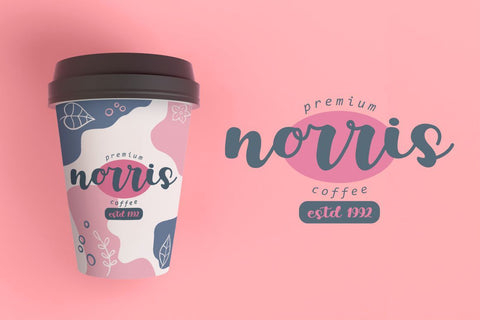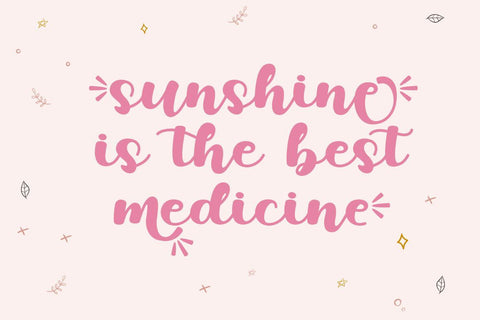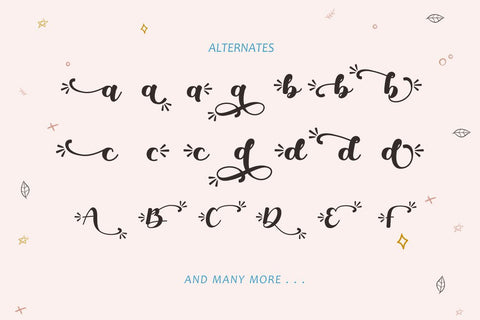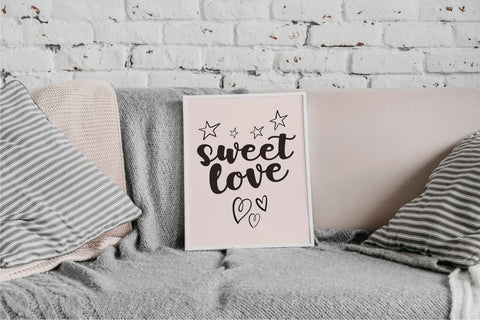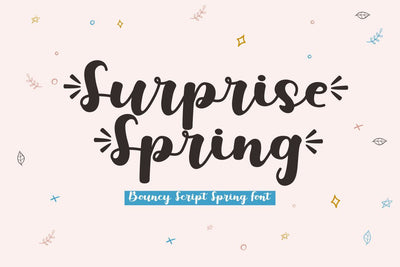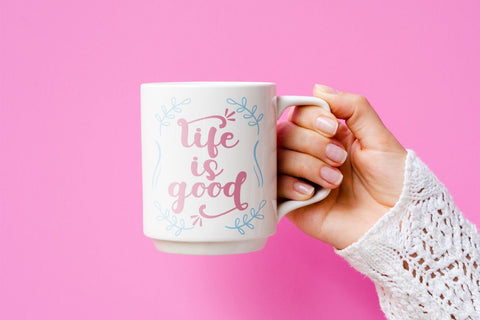
Surprise Spring - A Bouncy Script Font
Introducing a bouncy script font called "Surprise Spring", a bold script with unique element added for each character and alternates.
Come with open type feature with a lot of alternates, its help you to make great lettering.
Surprise Spring is perfect for logotype creation, crafting, quote, lettering compositions, wedding invitations, fashion projects, book design cover, magazines typography, cards, packagings, posters, branding and more.